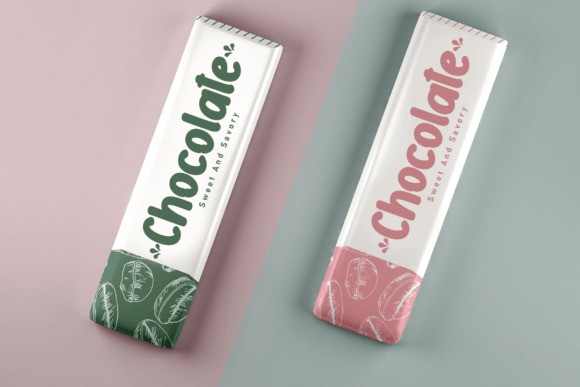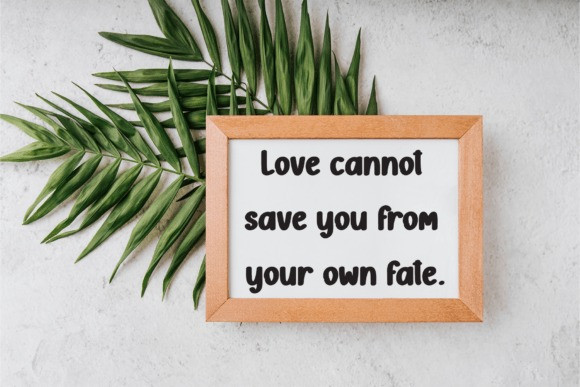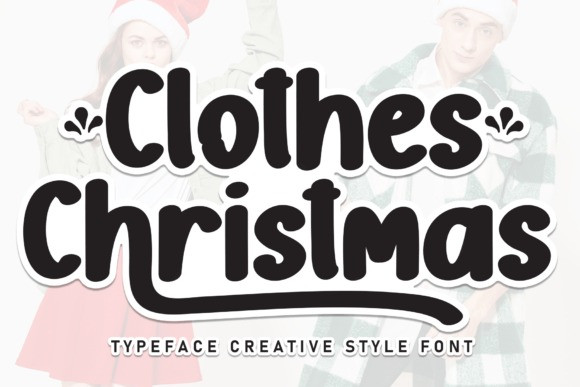
Clothes Christmas Font
Clothes Christmas Font, special creative products for you, our products will give you an extraordinary experience. the latest style letters are perfect for wall displays, wedding invitations, social media post logos, advertisements, product packaging, product designs, labels, photography, watermarks, invitations, stationery, and any project that requires taste handwriting.